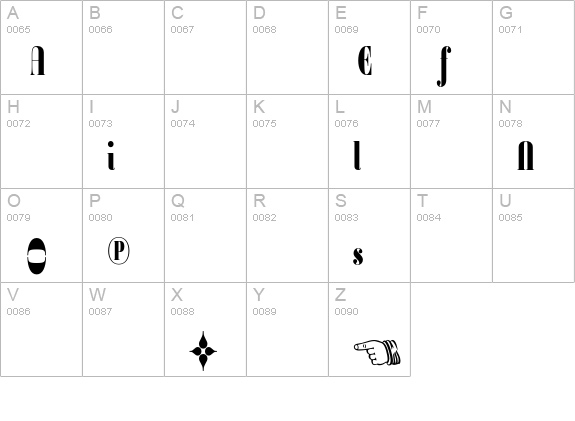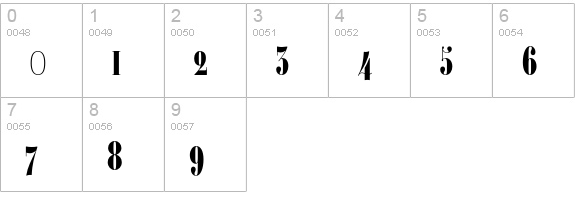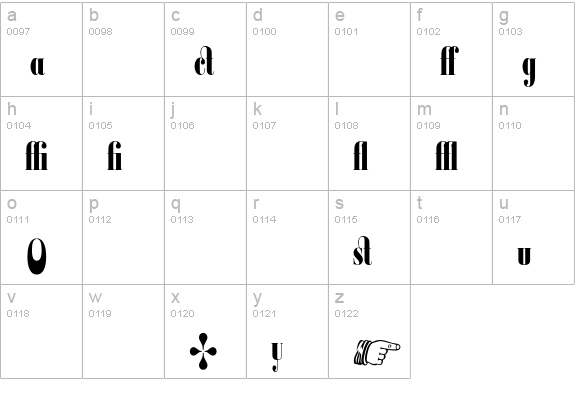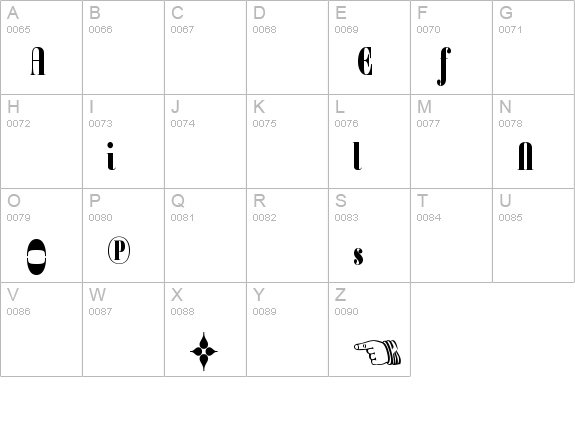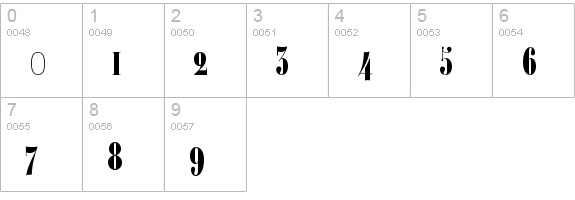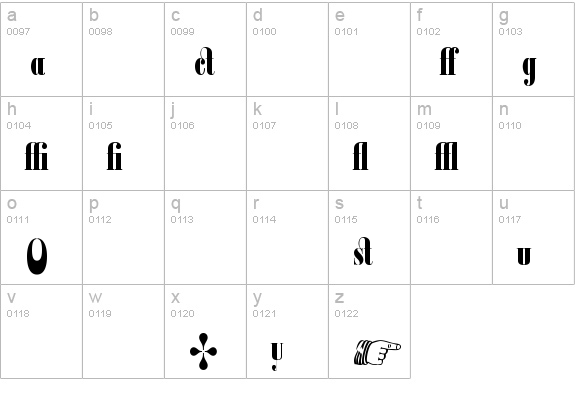
Ambroise Francois Alternates Black Font Details
Ambroise Francois Alternates Black is a maximum-weight, dramatic variant in the Ambroise typeface family \xE2\x80\x94 well suited to maximum-impact headlines, posters, and packaging.
Ambroise Francois Alternates Black is a striking and elegant font that commands attention with its bold and distinctive design. This typeface exudes sophistication and modernity, making it perfect for creating eye-catching headlines and stylish branding materials. The intricate details of the letterforms add a touch of luxury and refinement to any project. What sets Ambroise Francois Alternates Black apart is its unique alternates and swashes that provide endless possibilities for creative typography. These alternate characters offer a personalized touch and allow you to customize your text to suit your design needs perfectly. Best of all, Ambroise Francois Alternates Black is available for free download at FontsMarket.com. Whether you're working on a professional project or simply looking to enhance your personal creations, this font is a versatile and valuable addition to any designer's toolkit. Download it today and elevate your designs with the sophistication and style of Ambroise Francois Alternates Black.